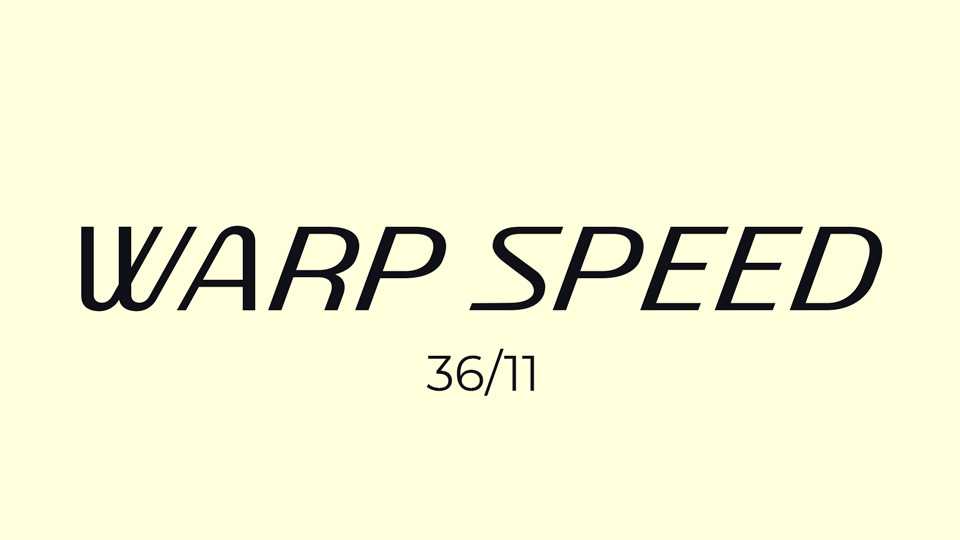
Download Warp Speed font, a display typeface with fast curves and an extreme slant that give this design a vintage science fiction vibe.
Designer: Justin Penner